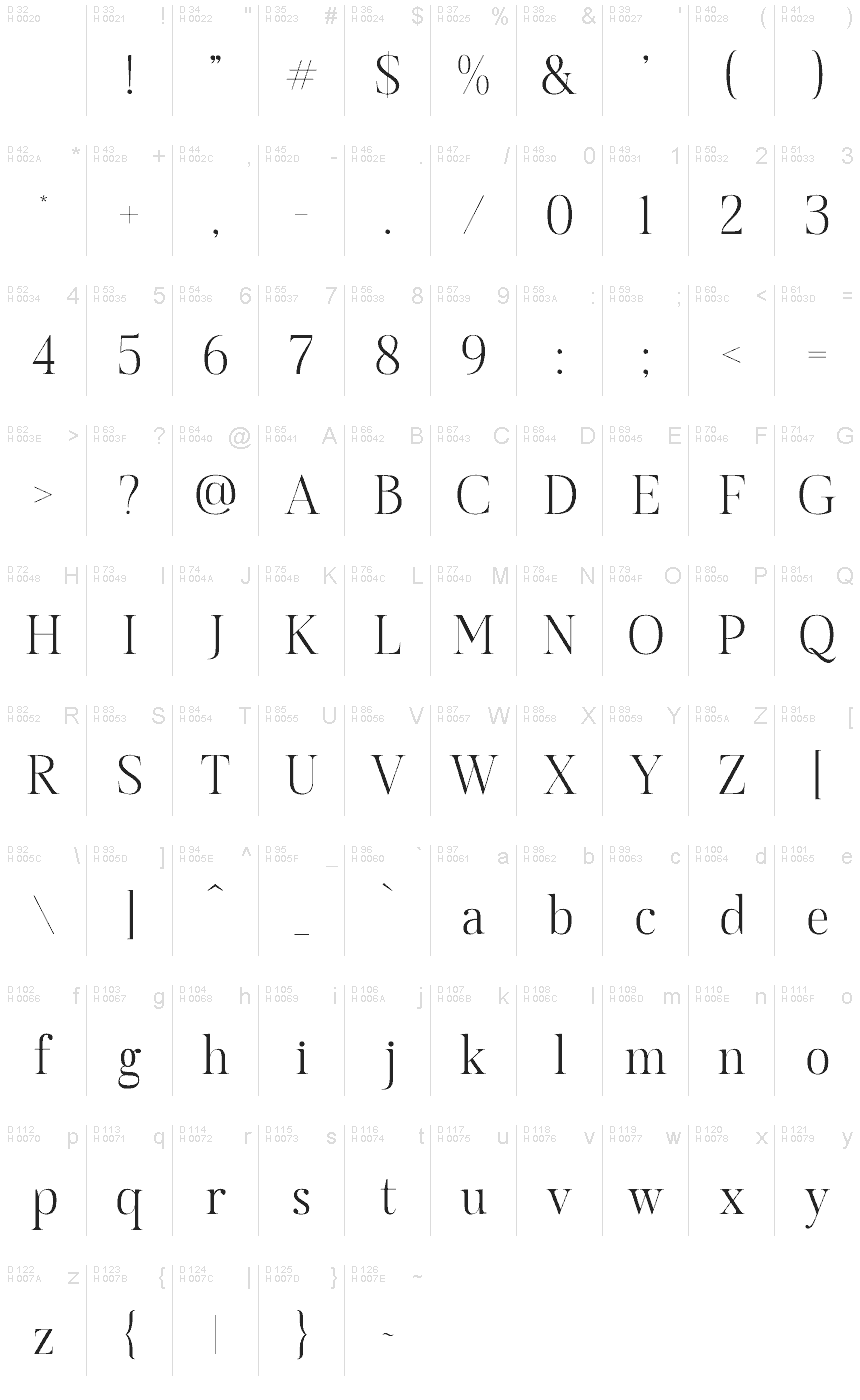
Megdira
Megdira font is a refined serif typeface by Storytype Studio, combining elegance with modernity. This font’s sophisticated aesthetic and classical influence add an element of timeless beauty to every written message. Reap the benefits of its smooth lines and appreciate the stylish dashes created following each word whenever you use this wonderful tool.
Envision Megdira in newspaper titles, printed magazines, branding presentations, greeting cards, business cards, branding ideas for start-ups and entrepreneurship businesses, or posters and packaging designs. Even though a more condensed outcome will follow when used in a website design or mobile app interface due to devices’ sizes online at 72 DPI against print at 300 dpi it still delivers stunning results that will not be disappointing when compared side-by-side next one another (regardless whether they’re digital) ‒ perfect especially if looking forward adding just enough professional hint any designer might hope get across!